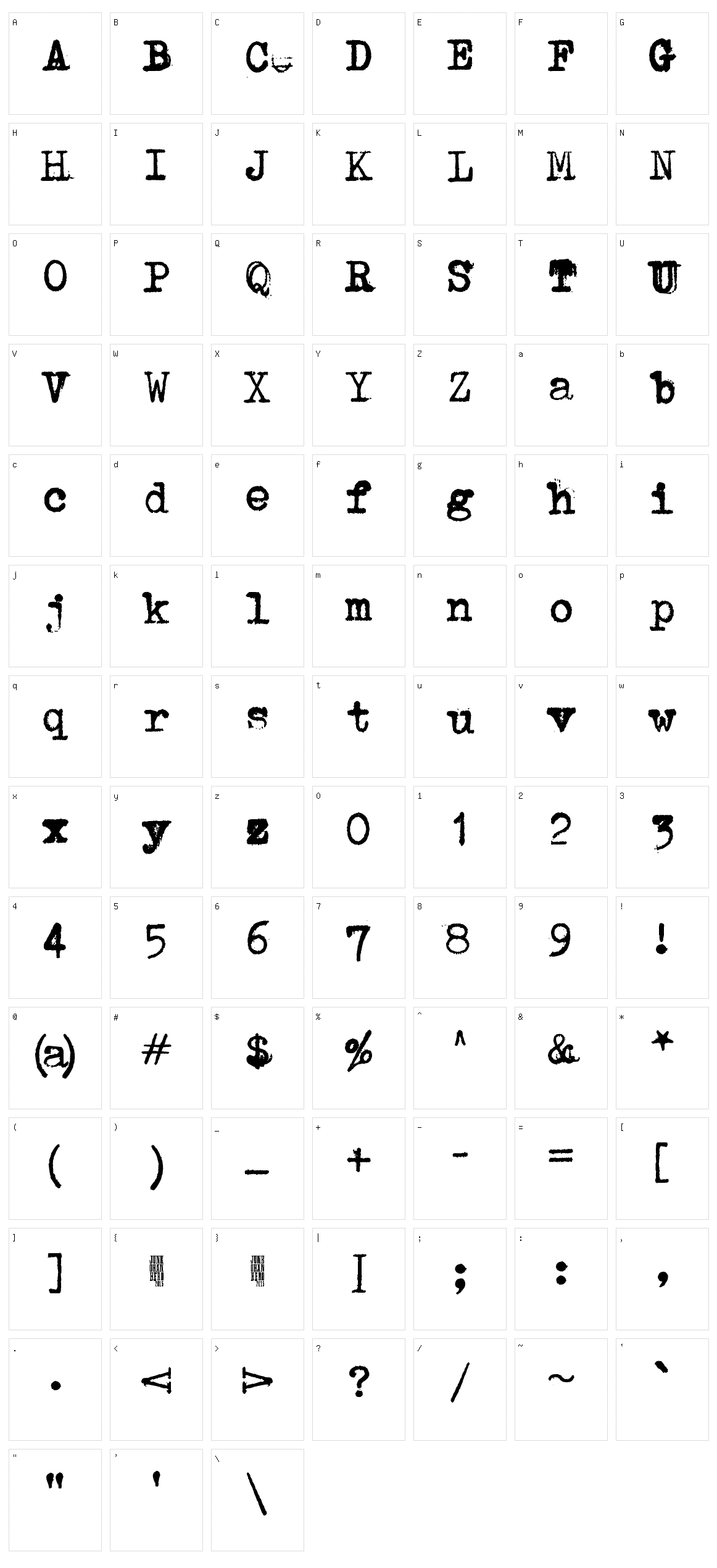
The free font Avojaloin is carefully designed by junkohanhero, showcasing a thoughtful balance of creativity and usability and falls under the Typewriter font style. When you download the ZIP file, it contains only 504.81 KB of font files, making it lightweight and quick to download. Please review the license details below to understand permitted usage and distribution rights. If license information is not available, we recommend using this font for personal projects only or contacting the author directly for commercial usage permissions.